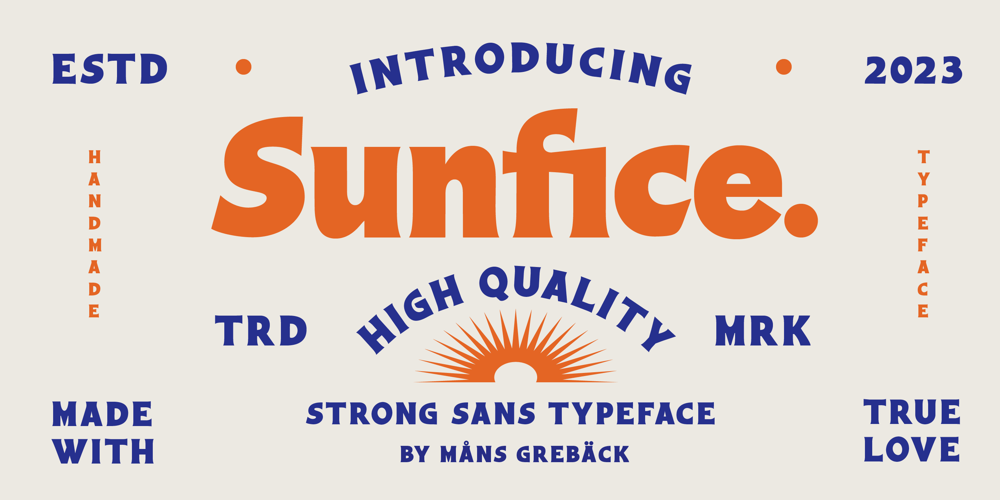
Sunfice Font Family was designed by Måns Grebäck and published by Mans Greback. Sunfice contains 4 styles and family package options. Sunfice is a heavy retro typeface. In a style that is not quite sans, not quite serif, this bold lettering gives any project the attention it deserves. Use it for a classic logotype or headline to give your work that genuine vintage look. The Sunfice family consists of four high-quality fonts:Regular, Italic, Bold and Bold ItalicThe font is built with advanced OpenType functionality and has a guaranteed top-notch quality, containing stylistic and contextual alternates, ligatures and more features; all to give you full control and customizability. It has extensive lingual support, covering all Latin-based languages, from Northern Europe to South Africa, from America to South-East Asia. It contains all characters and symbols you’ll ever need, including all punctuation and numbers.